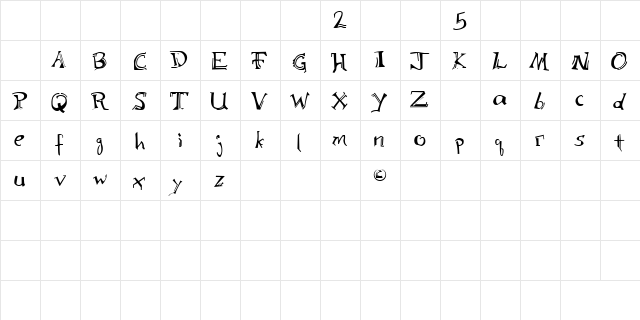
Bloomington Regular
Design Context for Bloomington Typeface
Bloomington is a composed and adaptable typeface that performs quietly and consistently across a wide range of design contexts.